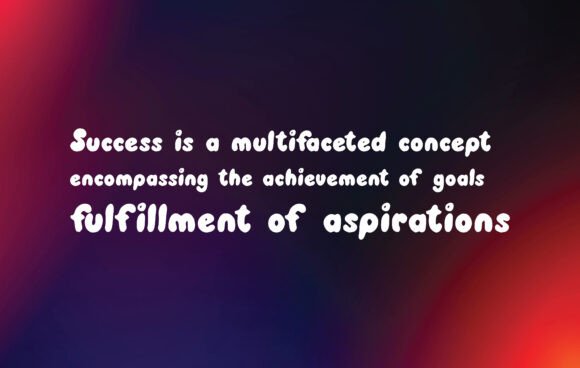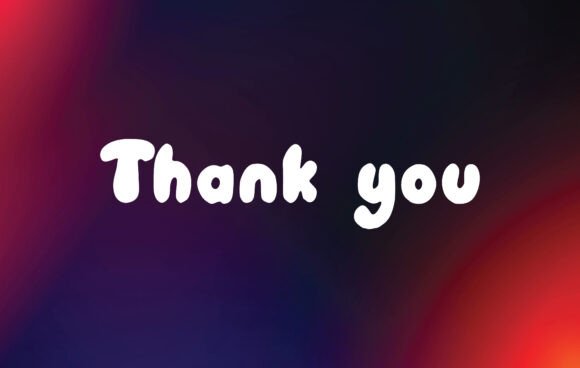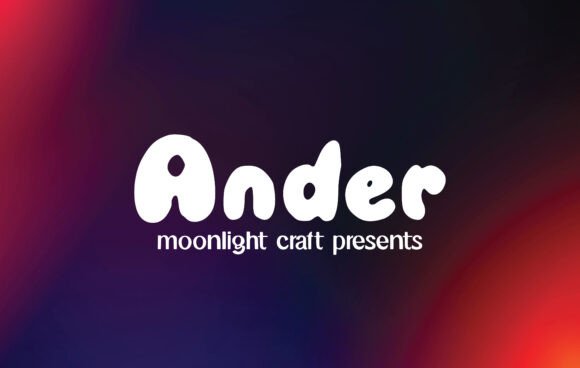
The Ander Font: A Creative Powerhouse for Designers and Crafters
An Honest Review of Ander Font
So, what makes Ander font so special? Let’s dive into the good stuff and a few quirks I’ve noticed.
What I Love About Ander Font
- ✨ Unique and eye-catching: Ander font has a distinct personality that sets it apart from more traditional fonts.
- ✅ Highly versatile: Whether you’re designing a logo, creating a quote graphic, or crafting a brand identity, Ander font adapts seamlessly.
- 💫 Beautifully handwritten: The font’s handwritten feel adds a touch of warmth and personality to any design.
While Ander font is amazing, there are a few things to keep in mind:
- 🤔 Legibility at small sizes: Like many handwritten fonts, Ander can be a bit tricky to read at very small sizes. Make sure to test it out at different sizes to ensure it works for your project.
- ⚠️ Limited use in formal contexts: Ander font’s playful nature makes it less suitable for very formal or corporate designs.
The Story Behind Ander Font
Ander font was designed with the intention of creating a beautiful, versatile handwritten font that could bring a touch of personality to any design. While I couldn’t find much information on the font’s origins, it’s clear that the designer aimed to craft a font that’s both elegant and approachable.
Q: What makes Ander font unique?
A: Ander font’s unique blend of elegance and playfulness makes it stand out from other handwritten fonts.
Q: Is Ander font suitable for body text?
A: While Ander font is beautiful, it’s best suited for headings, titles, and short paragraphs. For longer body text, a more traditional font might be more readable.